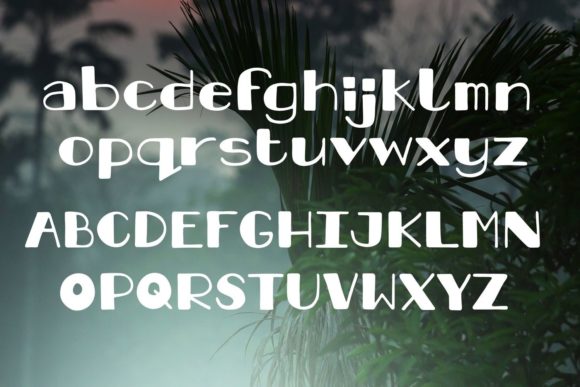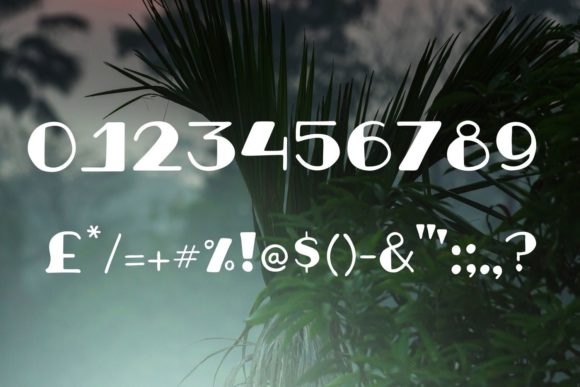
Gecko Font: Elevate Your Designs with a Modern and Techno Twist
In the world of typography, fonts play a crucial role in making or breaking a design. A well-chosen font can instantly elevate your project, adding a touch of personality and style. If you’re on the hunt for a modern and techno-looking display font that’s perfect for web designs, business cards, and more, look no further than Gecko Font. In this article, we’ll dive into the world of Gecko Font, exploring its features, benefits, and uses.
What is Gecko Font?
Gecko Font is a modern and techno-looking display font designed to add a unique touch to your designs. With its sleek lines, futuristic curves, and bold appearance, Gecko Font is ideal for projects that require a bit of edge. Whether you’re a designer, craftsperson, or simply a DIY enthusiast, Gecko Font is a versatile choice that can be used for a wide range of applications.
Key Features of Gecko Font
- Modern and Techno Look: Gecko Font boasts a modern and techno-inspired design, perfect for projects that require a cutting-edge feel.
- Display Font: Designed specifically as a display font, Gecko Font is optimized for large-scale use, making it perfect for headlines, titles, and more.
- Unique Touch: With its distinctive curves and lines, Gecko Font adds a unique touch to any design, setting it apart from more traditional fonts.
- Versatile: From web designs and business cards to posters, brochures, and more, Gecko Font is a versatile choice that can be used across a wide range of applications.
Benefits of Using Gecko Font
So, why choose Gecko Font for your next project? Here are just a few benefits of using this modern and techno-looking display font:
- Adds Visual Interest: With its bold and futuristic design, Gecko Font is sure to grab attention and add visual interest to your project.
- Enhances Brand Identity: A unique font like Gecko Font can help establish a strong brand identity, setting your business or project apart from the competition.
- Easy to Read: Despite its bold and futuristic design, Gecko Font is surprisingly easy to read, making it perfect for use in a variety of applications.
- Customizable: As a digital font, Gecko Font can be easily customized to suit your needs, allowing you to adjust size, color, and more.
Using Gecko Font in Your Designs
So, how can you use Gecko Font in your designs? Here are a few ideas to get you started:
- Web Designs: Use Gecko Font to add a modern and techno touch to your website’s headlines, titles, and more.
- Business Cards: Make a bold statement with Gecko Font on your business cards, adding a unique touch to your professional branding.
- Posters and Flyers: Use Gecko Font to grab attention with bold and eye-catching headlines and titles.
- Social Media Graphics: Add a modern and techno twist to your social media graphics, using Gecko Font to create bold and engaging visuals.
In conclusion, Gecko Font is a modern and techno-looking display font that’s perfect for designers, craftspersons, and DIY enthusiasts alike. With its unique design, versatility, and ease of use, Gecko Font is an excellent choice for a wide range of applications. Whether you’re looking to add a touch of edge to your web designs, business cards, or more, Gecko Font is sure to deliver. So why wait? Download Gecko Font today and take your designs to the next level!